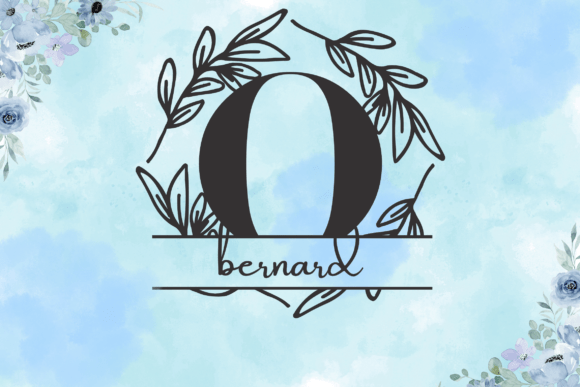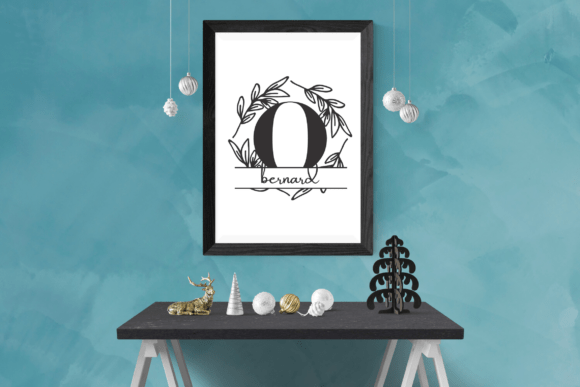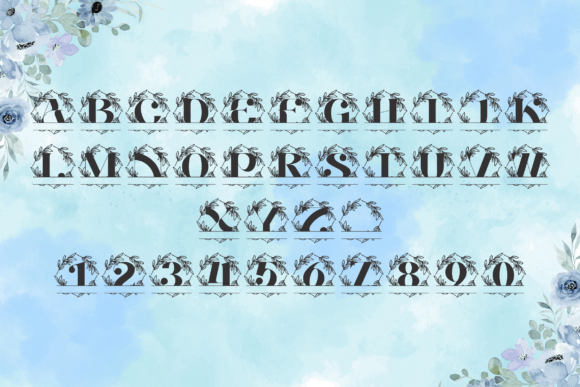
Introduction to Olivara Split Monogram Font
Meet Olivara Split, the Split Monogram Font Olivara Split Monogram turns simple initials into refined botanical emblems with a clean center split for names, dates, or short words.
The strokes are smooth and balanced, so letters stay clear at any size Because counters remain open and curves stay clean, tiny tags print crisp while large signage looks polished and gift-ready.
Key Features of Olivara Split Monogram Font